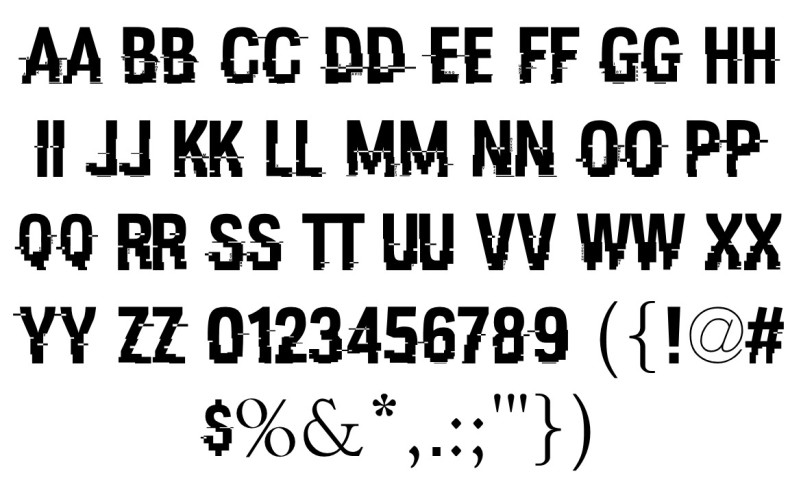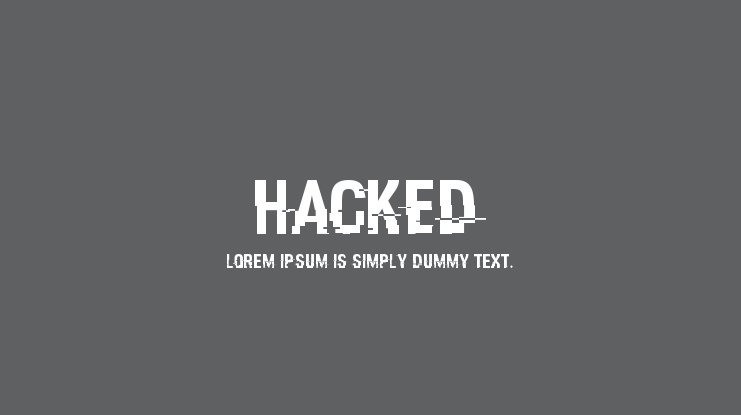
Hacked Font. This font is a recreation of the Watch Dogs (Ubisoft game) logo but you can use it for any purpose. The licence is Creative Commons Attribution : commercial use is ok, you have to credit the font “Hacked” and its author “David Libeau”. Thanks! Don’t forget to donate if you like the font!
Hacked Font